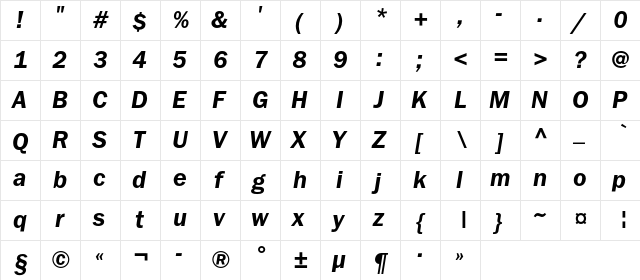
FranklinGothicDemiC Italic Font Preview
FranklinGothicDemiC Italic
Design Context for FranklinGothicDemiC Typeface
FranklinGothicDemiC takes a clean, functional approach — its unadorned letterforms prioritise legibility and work reliably across screen and print environments. The dynamic lean of this cut emphasises speed and emphasis in any layout.
Font Pairing: Works well alongside a characterful serif or display font that can carry the expressive load while FranklinGothicDemiC handles the functional copy.
Pro Tip: Use FranklinGothicDemiC for UI labels, navigation, and short-form body copy where clean legibility is the priority.